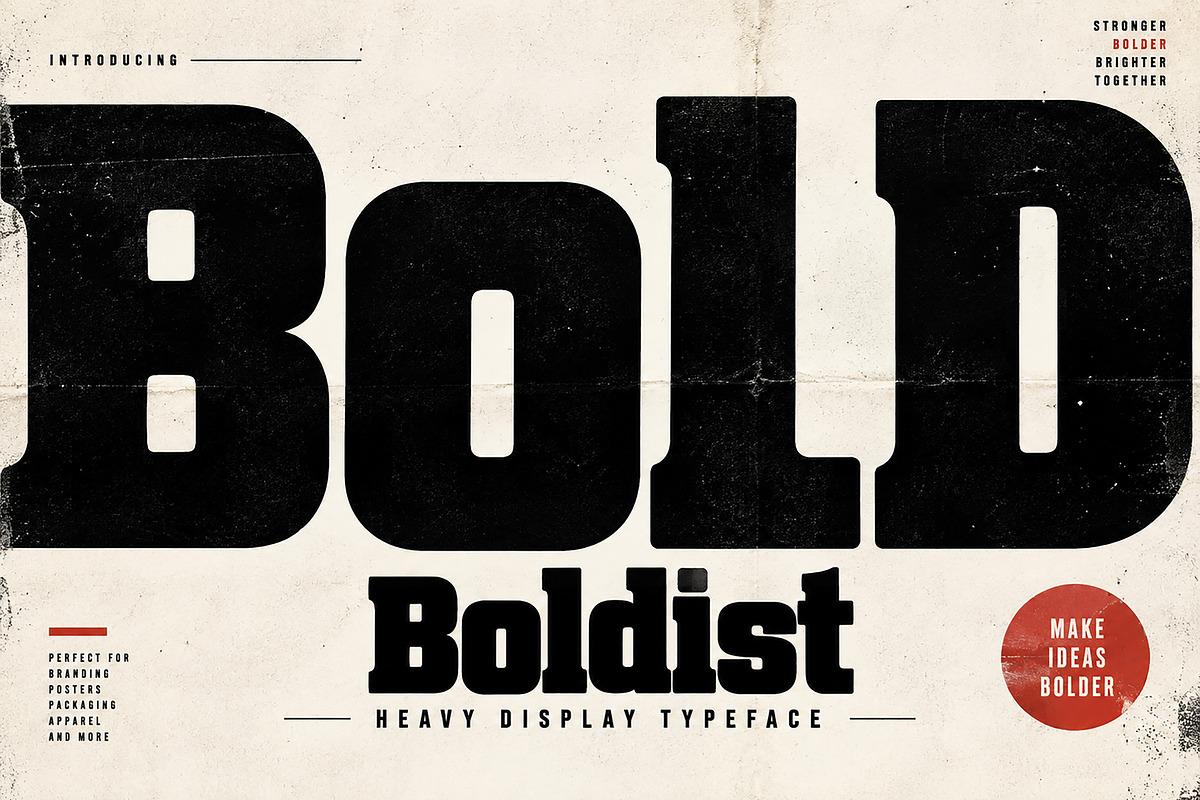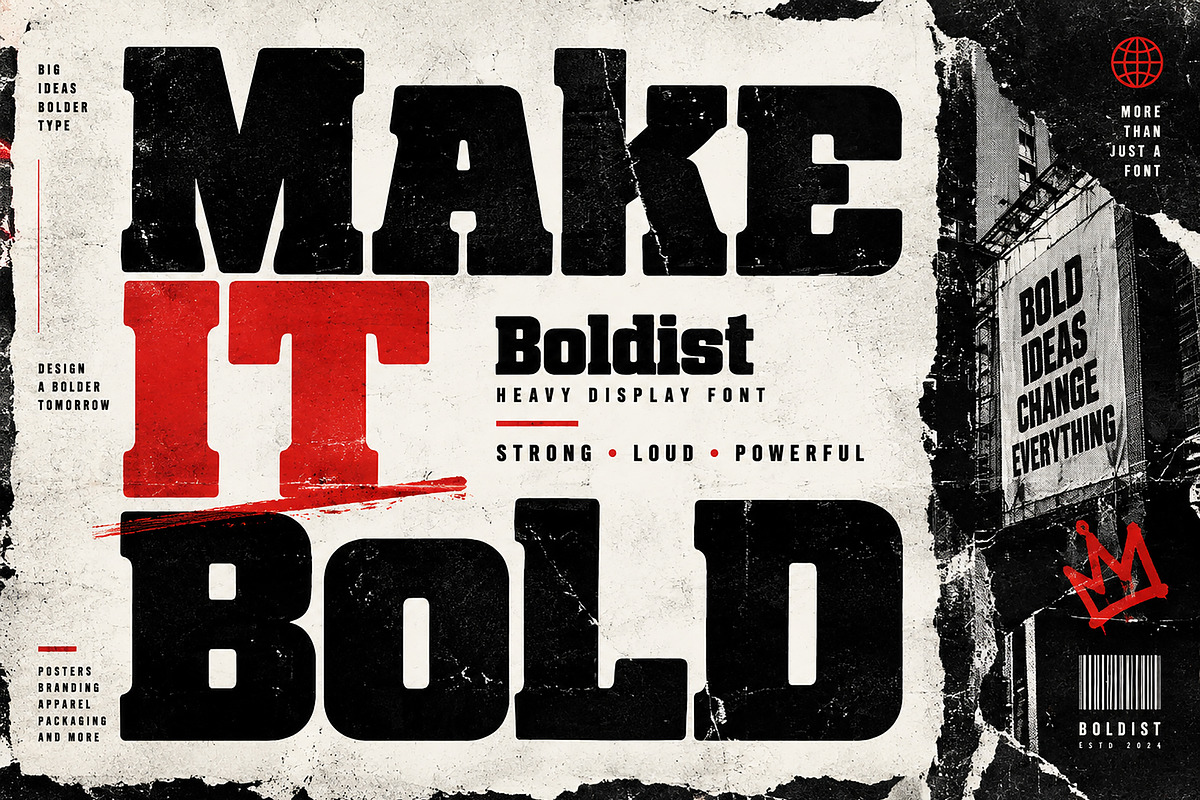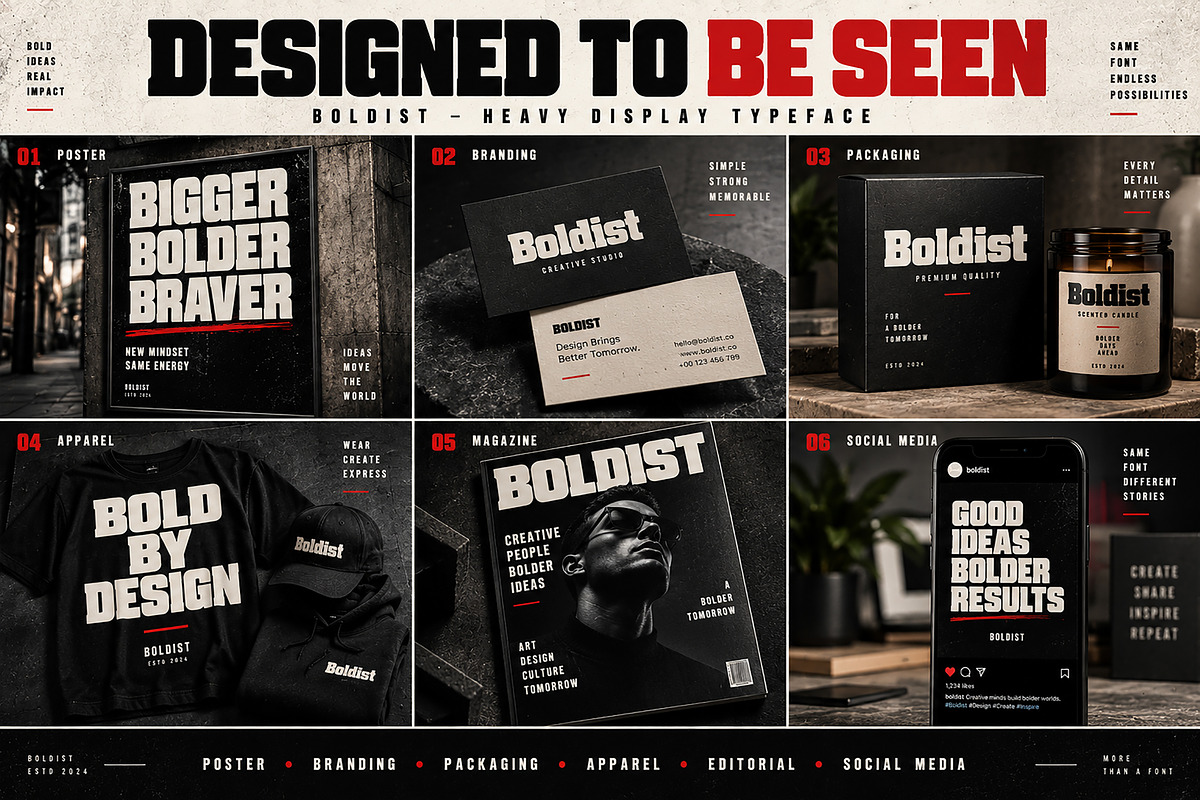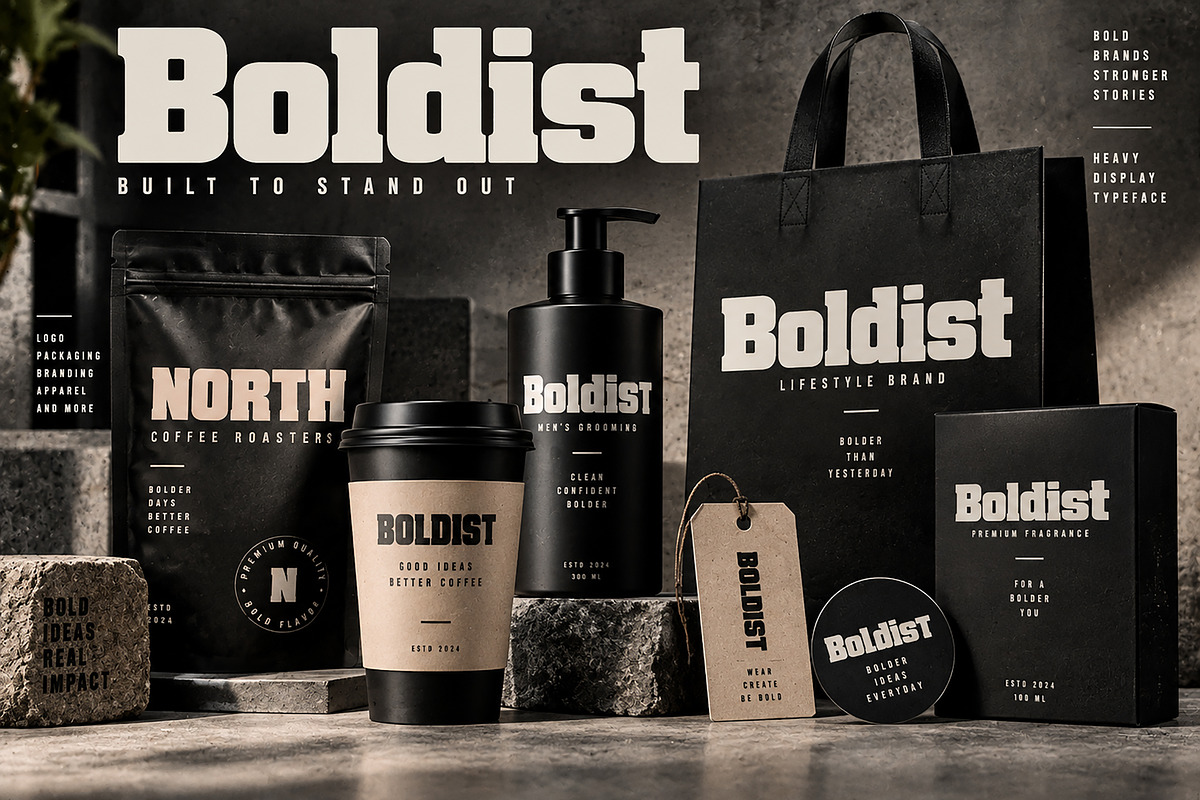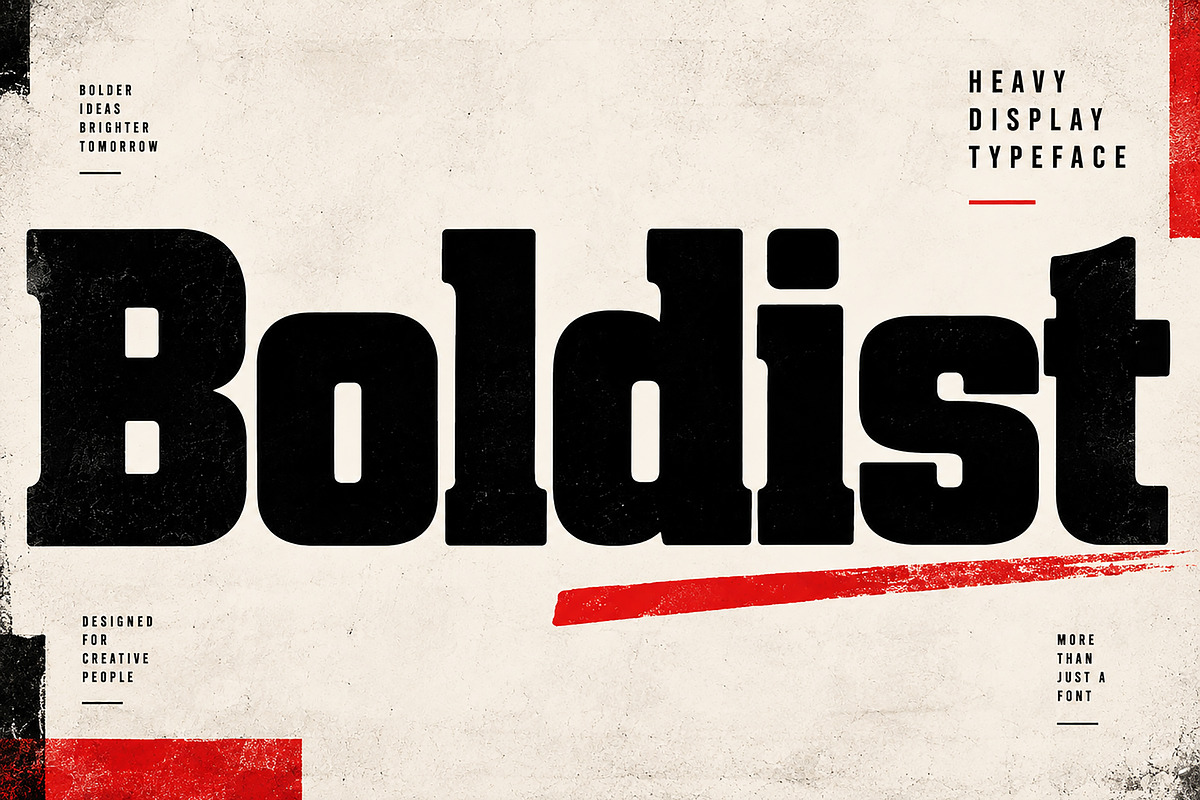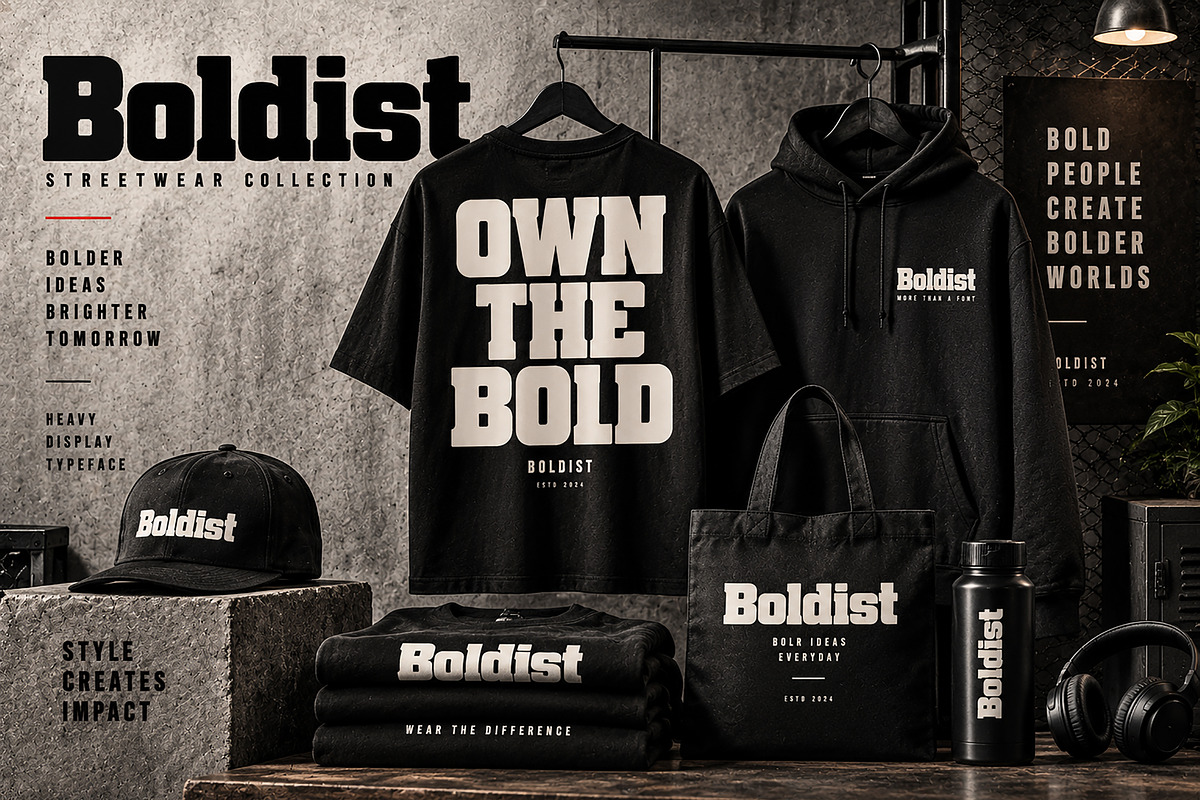
Boldist
Boldist is a powerful heavy display typeface designed to make every word stand out. With its bold, compact, and impactful letterforms, Boldist brings a strong visual presence to posters, branding, packaging, apparel, advertising, editorial layouts, social media graphics, and other attention-grabbing designs.
Its heavy weight and distinctive character make it an excellent choice for headlines, logos, titles, promotional artwork, streetwear designs, product packaging, and modern brand identities.
Posters & Advertising
Logo & Branding
Streetwear & Apparel
Labels & Stickers
Magazine & Editorial Design
Headlines & Titles
Promotional Materials
Creative Campaigns
Print & Digital Design
Font Name: Boldist
Font Style: Heavy Display Typeface
Font Type: Display / Decorative
Boldist — Make Your Words Impossible to Ignore.